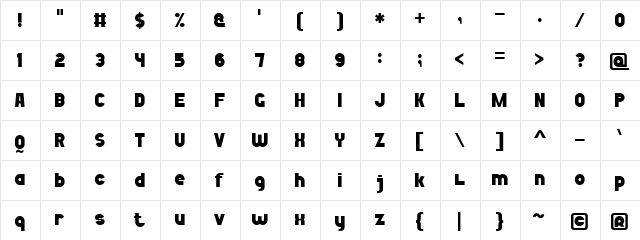
Bold Game Font 7 Regular
Design Context for Bold Game Font 7 Typeface
Bold Game Font 7 is a composed and adaptable typeface that performs quietly and consistently across a wide range of design contexts. Its bold stroke weight gives it real presence on the page.